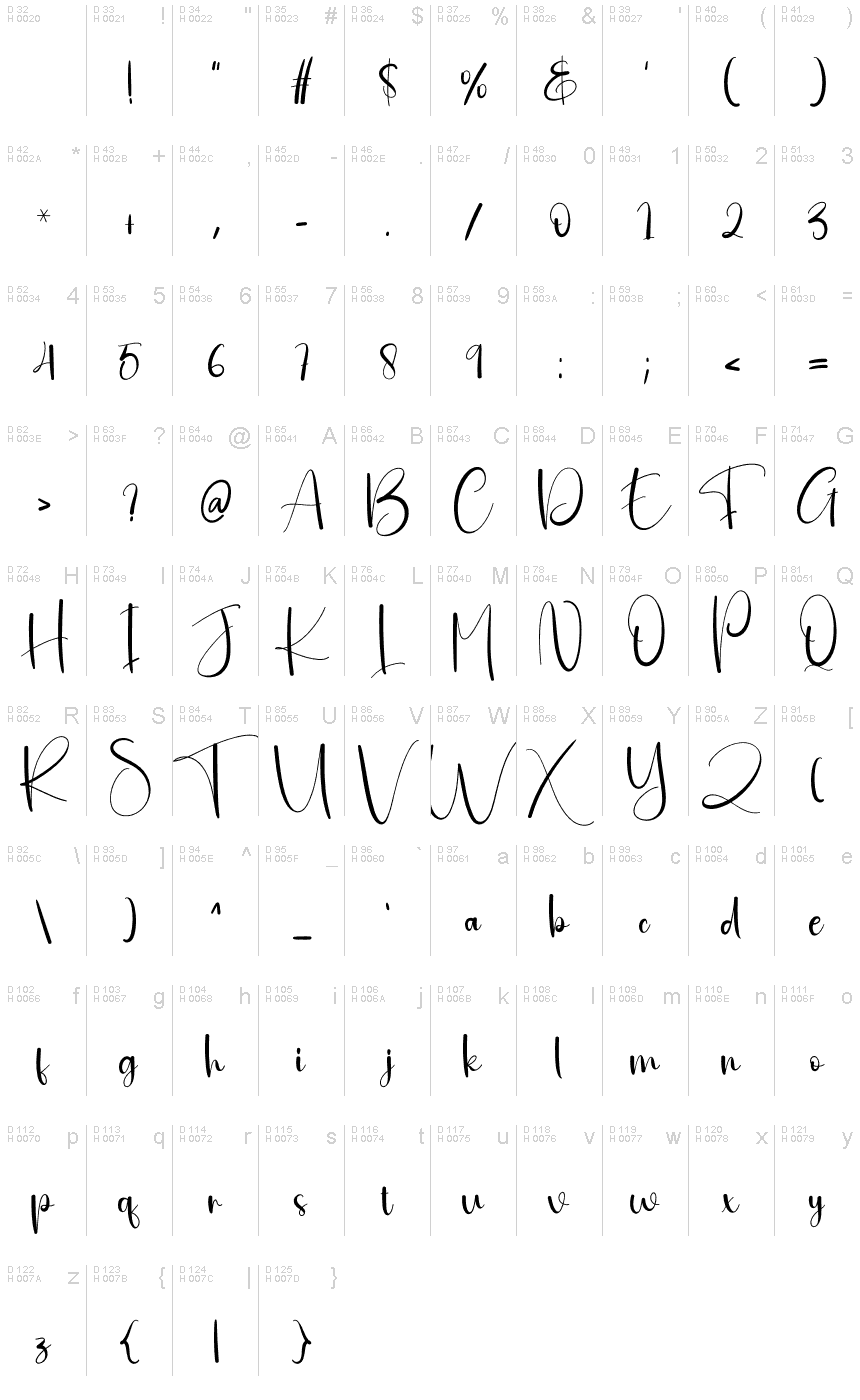
Scrapbook
Scrapbook, a delightful semi-light handwritten font designed by Scratchones, exudes an air of whimsical creativity. With its charming imperfections and playful strokes, this font adds a touch of personality to any project it graces.
Ideal for crafting engaging social media posts, captivating invitations, or heartwarming greeting cards. Its handwritten style effortlessly conveys warmth and authenticity, making it perfect for DIY blogs, scrapbooking enthusiasts, and artistic endeavors alike.
Let Scrapbook be your creative companion as you embark on a diverse range of projects that require a touch of handmade charm.